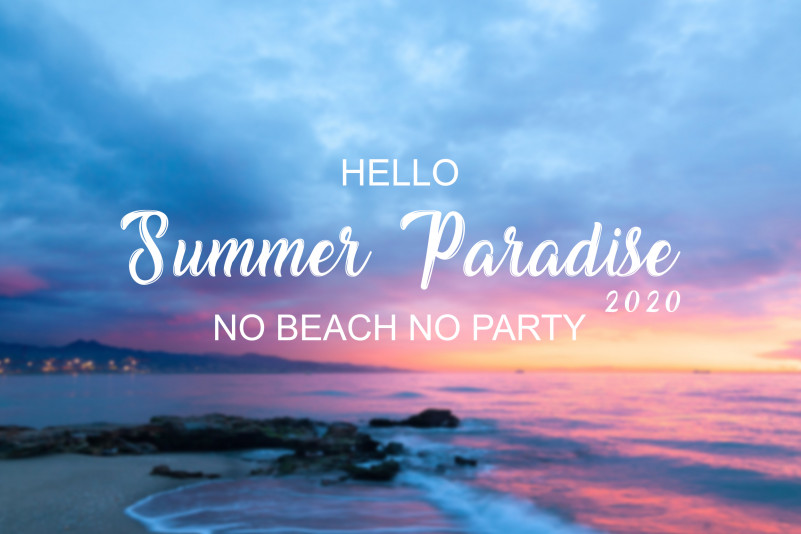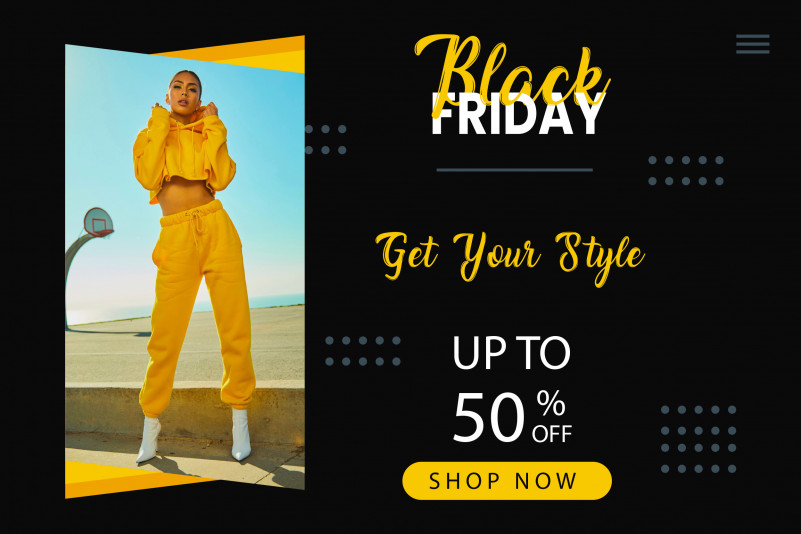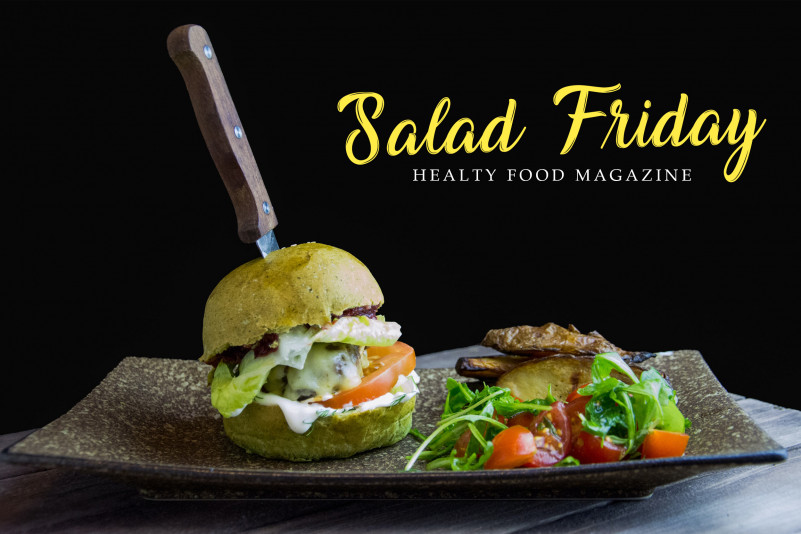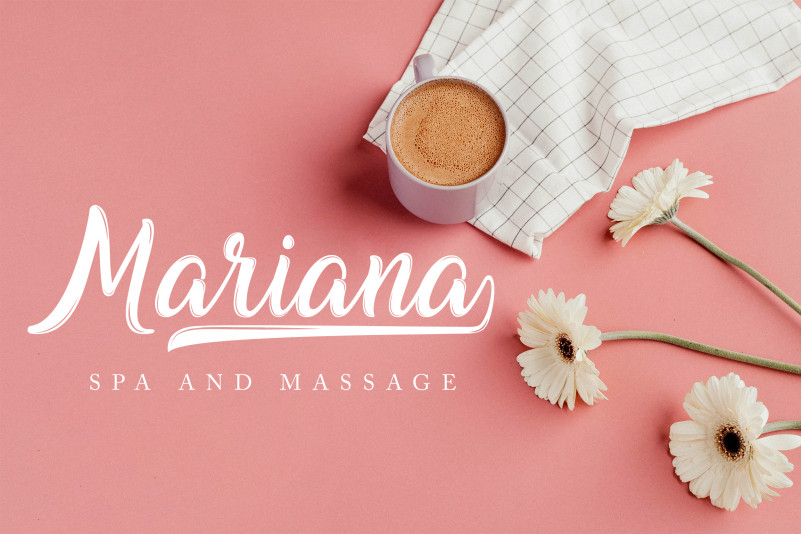
Jhoiboy Script Font is a casual grunge texture with many variations of font shapes to create a perfect and unique design.
Jhoiboy Script Font has 8 alternatives, 7 alternatives for lowercase letters and 1 alternative for uppercase letters, along with ligature and multilingual support that will match your desires.